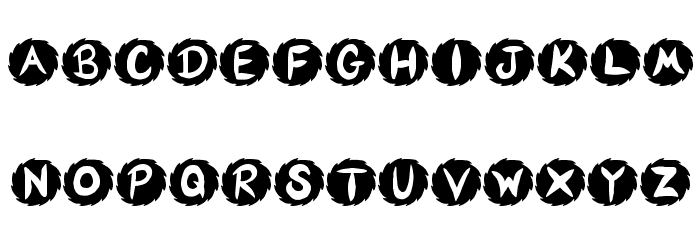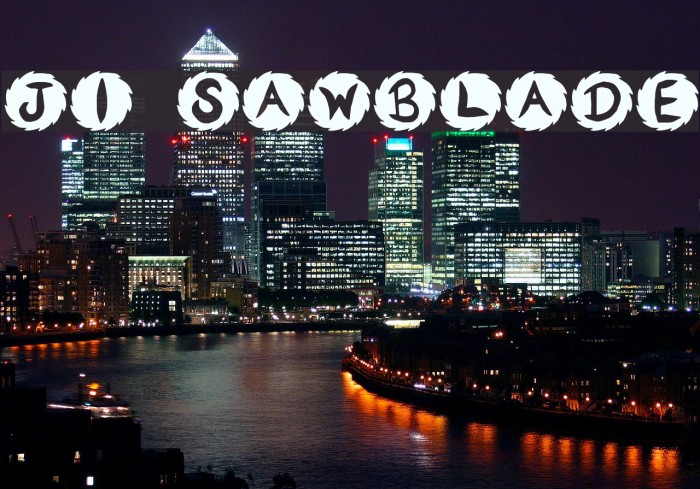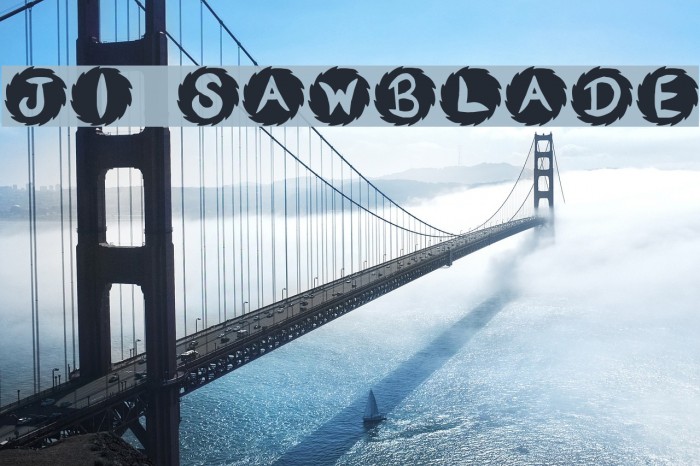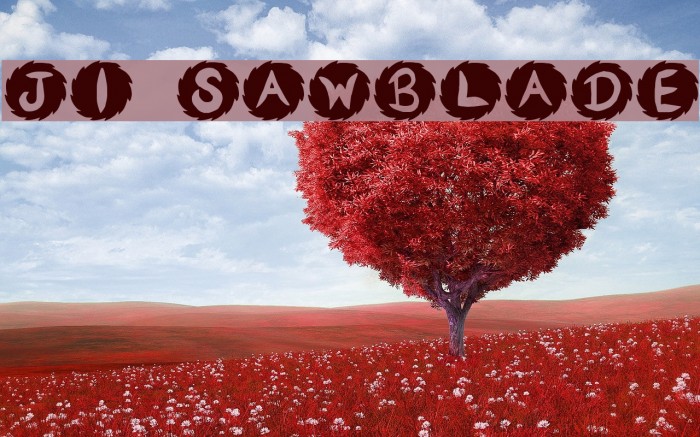
JI Sawblade Font
This font features bold, uppercase letters encased in circular sawblade-like shapes, creating a rugged and industrial aesthetic. The letters are white against a black, jagged circular background, giving the impression of being cut out from a solid material. The design is consistent across the alphabet, maintaining a uniform look that emphasizes strength and durability. The font does not include lowercase letters or numbers, focusing solely on uppercase characters. Its unique style makes it stand out, ideal for projects that require a bold statement.
A bold, industrial font with uppercase letters in sawblade shapes.
- Proposed Projects: Ideal for logos, branding, posters, and any design needing a strong, industrial feel.
- Overall Style: Industrial, Rugged